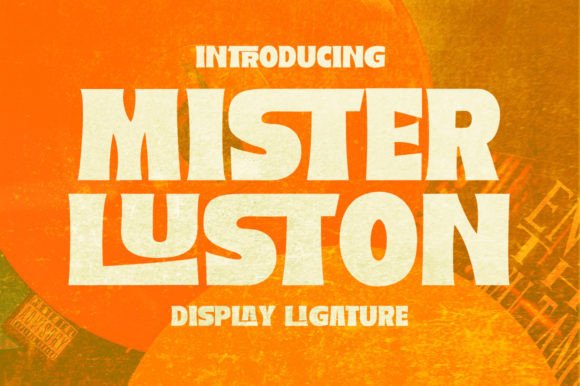
**Mister Luston Font: A Timeless Retro Masterpiece for Your Creative Endeavors**
Unleash the captivating charm of Mister Luston, a bold and retro display font that exudes nostalgia and sophistication. With its array of ligatures and alternatives, this font is a versatile treasure that will elevate your projects to new heights. Whether you're designing wedding invitations, posters, event flyers, social media posts, or logos, Mister Luston will add a touch of timeless elegance and retro flair.
**Embrace the Retro Chic:**
Step into a world of retro chic with Mister Luston. This font's meticulously crafted characters evoke a sense of nostalgia, transporting you back to an era of timeless glamour. Its bold lines and distinctive curves create a visually striking aesthetic that will capture the attention of your audience.
**Express Elegance and Sophistication:**
Mister Luston exudes an aura of elegance and sophistication that will elevate your projects. Its refined design adds a touch of class to any application, making it the perfect choice for wedding invitations, branding materials, and other formal designs.
**Boundless Creative Possibilities:**
Unlock your creativity with Mister Luston's versatility. From eye-catching posters and event flyers to captivating social media posts and logos, this font effortlessly adapts to a wide range of design needs. Let your imagination soar as you explore the endless possibilities that Mister Luston offers.
**Make a Statement with Every Design:**
With Mister Luston, every design becomes a statement piece. Its bold presence ensures that your projects stand out from the crowd. Whether you're creating marketing materials, website designs, or social media graphics, Mister Luston will make an unforgettable impact.
**Feel the Nostalgia:**
Embark on a nostalgic journey with Mister Luston. Its retro charm will evoke fond memories and create a sense of connection with your audience. Tap into the power of nostalgia to create designs that resonate deeply with your target market.